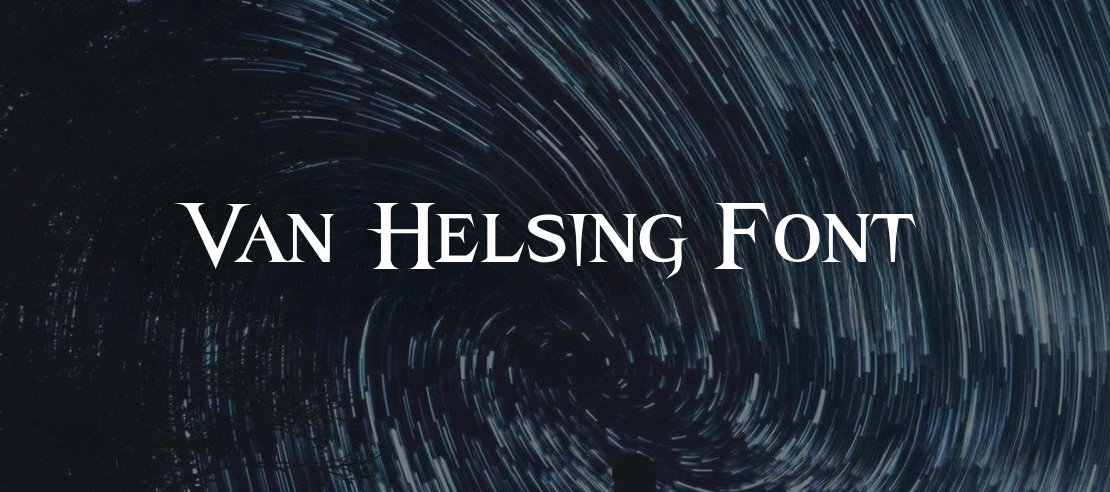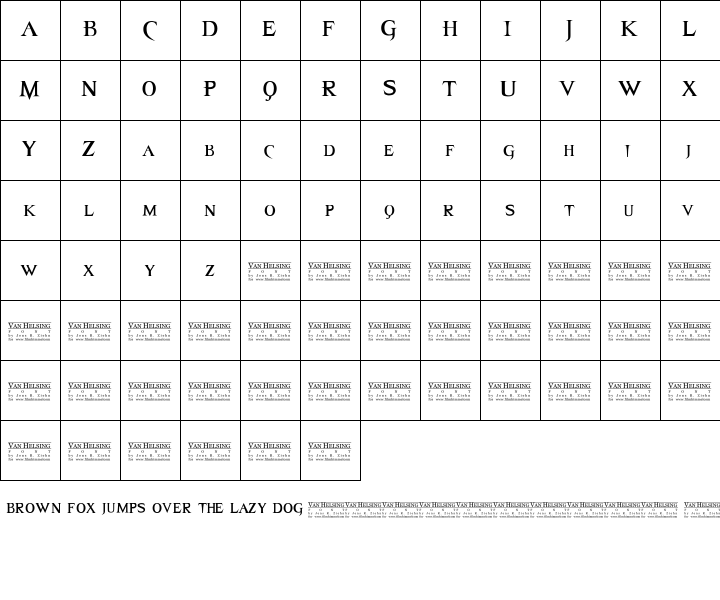
Van Helsing Font is a gothic typeface that gained very much popularity in a very short time. This font has a very basic shape that makes your project more attractive. This font is available in both desktop and Webfont formats and includes support for a wide range of languages.
The characters of this font have been designed to be easily recognizable, even when displayed in small sizes. The open counterforms give the letters a friendly and approachable look, while the slightly condensed proportions lend it a touch of sophistication.
The wide range of weights and styles makes it suitable for use in a variety of applications, from branding and advertising to web design and print. If you want to see the similarities of this typeface and want to pair them then morpheus font is the best option for you.
Creator of Van Helsing Font
This is a gothic font that was designed by “Filmhimmel”. Filmhimmel design many amazing fonts and this font are one of them. while creating this font designer focused on his clean and bold texture that looks so amazing.
| Name | Van Helsing Font |
| Style | Gothic |
| Designer | Filmhimmel |
What font looks good with van helsing?
van helsing looks good with any sans-serif typeface. Some popular pairings include Lato, and Montserrat.